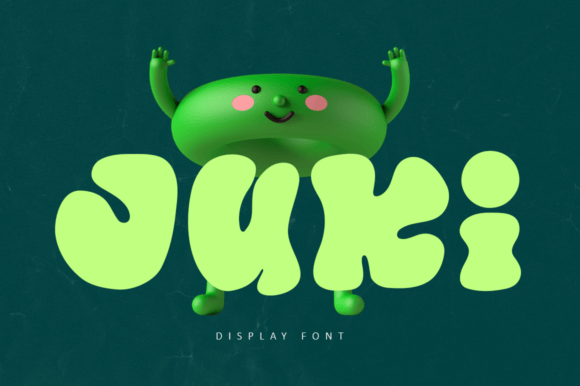
Juki Font
**Unleash the Festival Spirit with Juki Font: The Ultimate Showstopper for Captivating Posters**
Immerse yourself in the vibrant world of Juki, a handwritten font that exudes boldness and playful energy. Each character dances across the page with an infectious groove, inviting you to create festival posters that ignite the senses and leave a lasting impression.
Juki's display-ready typeface is a true masterpiece, designed to capture attention and make your posters stand out from the crowd. Its unique and eye-catching style will transform your designs into works of art, attracting festivalgoers like moths to a flame.
**Indulge in a Symphony of Expression**
Juki's bold and playful nature lends itself perfectly to a multitude of festival-themed creations. From vibrant posters that announce the arrival of the biggest musical acts to captivating flyers that showcase the diverse lineup of food stalls, this font will elevate your designs to new heights.
Its versatility extends beyond the realm of festivals, making it an exceptional choice for logotypes, magazine covers, labels, and any other advertising venture where a touch of whimsy and individuality is desired.
**Ignite the Creative Spark**
With Juki at your fingertips, the possibilities are boundless. Let your creativity soar as you craft posters that evoke a sense of excitement and anticipation, inspiring festivalgoers to gather and revel in the shared experience of music, art, and culture.
Every stroke of Juki's bold and expressive characters carries the promise of a captivating visual journey. Embrace the font's playful spirit and watch as your posters transform into vibrant canvases that ignite the imagination and create unforgettable memories.
**Join the Festival Revolution**
Don't miss out on the opportunity to elevate your festival posters with Juki, the font that embodies the essence of celebration, creativity, and boundless expression. Let its groovy letters dance across the page, captivating festivalgoers with their bold and infectious charm.